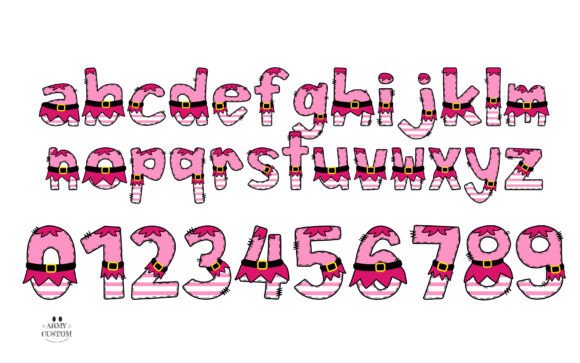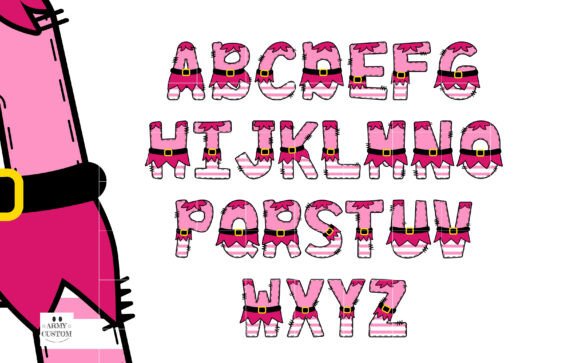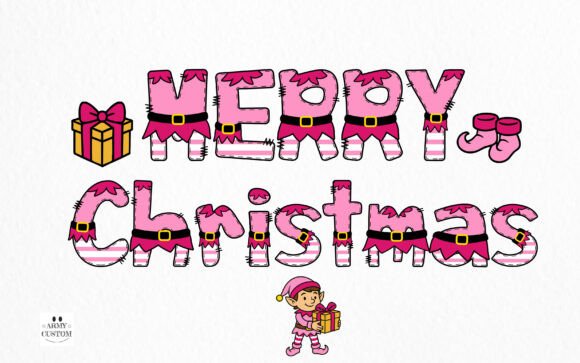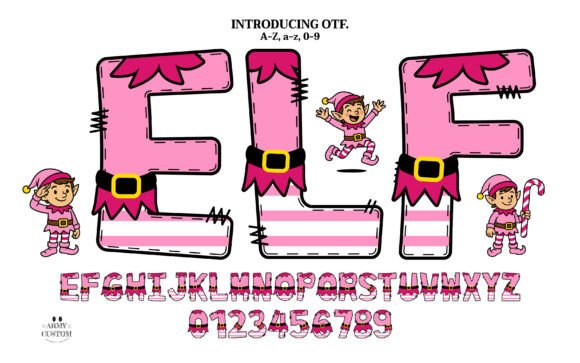
Introducing the Christmas Elf Font: A Whimsical Addition to Your Holiday Design Toolkit
Are you looking for a font that captures the essence of the holiday season? Do you want to add a dash of whimsy and merriment to your design projects? Look no further than the Christmas Elf Font! This playful font is inspired by the adorable antics of Santa’s helpers and is sure to bring a smile to your face.
A Font that Embodies the Spirit of the Season
The Christmas Elf Font is more than just a font – it’s an experience. Its jovial style and charming lettering make it an ideal choice for creating vibrant holiday decorations, festive greeting cards, or adding a touch of holiday cheer to any design project. Whether you’re a designer, crafter, or simply someone who loves the holiday season, this font is sure to delight.
Design Possibilities are Endless
With the Christmas Elf Font, the design possibilities are endless. Imagine creating:
- Festive holiday cards and invitations that will make your friends and family smile
- Vibrant holiday decorations, such as garlands, banners, and signs
- Playful gift tags and wrapping paper designs that will make your presents stand out
- Whimsical social media graphics and posts that will spread holiday cheer
What Makes the Christmas Elf Font So Special?
So, what sets the Christmas Elf Font apart from other fonts? Here are a few features that make it truly special:
- Unique and playful lettering: Each letter is carefully crafted to resemble the handwriting of Santa’s helpers, complete with quirky flourishes and details.
- Whimsical style: The font’s jovial style is sure to bring a smile to your face and evoke the spirit of the holiday season.
Tips for Using the Christmas Elf Font
Here are a few tips for using the Christmas Elf Font in your design projects:
- Pair it with other holiday fonts: Combine the Christmas Elf Font with other holiday fonts to create a unique and festive look.
- Experiment with colors: Try pairing the font with bright, bold colors to really make it stand out.
- Add illustrations: Consider adding illustrations of elves, snowflakes, or other holiday-themed elements to really bring your design to life.
Get Ready to Spread Holiday Cheer with the Christmas Elf Font
The Christmas Elf Font is the perfect addition to your holiday design toolkit. Its playful style and whimsical charm make it an ideal choice for designers, crafters, and anyone looking to add a dash of holiday cheer to their design projects. So why wait? Download the Christmas Elf Font today and get ready to spread some holiday cheer!
In conclusion, the Christmas Elf Font is a fun and festive font that’s sure to bring a smile to your face and inspire your holiday designs. Whether you’re a seasoned designer or a crafter looking for a new way to add some personality to your projects, this font is sure to delight. So go ahead, get creative, and let the Christmas Elf Font help you spread some holiday cheer!